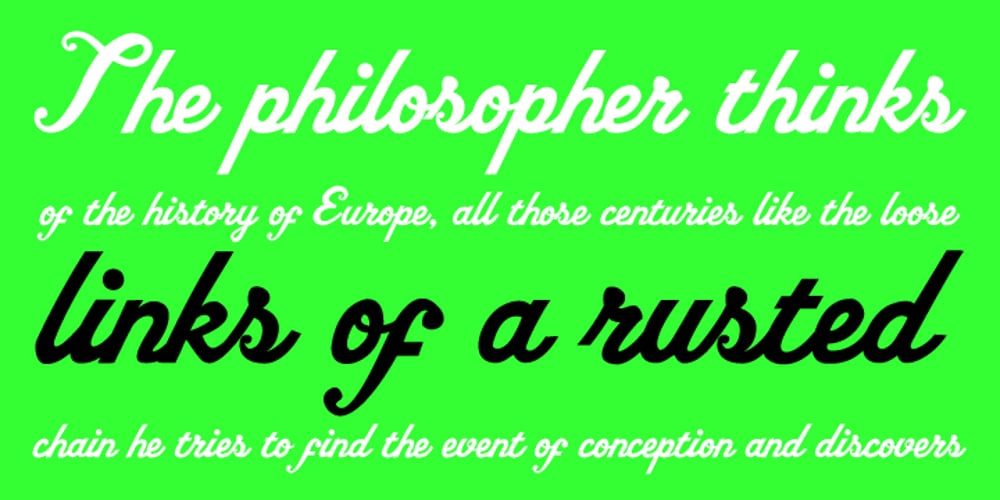
Vitrina
Vitrina font
Vitrina Font Family was designed by Pablo A. Medina and published by Design is Culture. Vitrina contains 1 styles and family package options. Vitrina is a script based on letterforms painted on a window for a restaurant called “Latin American Cafeteria”. Its quirky script forms are meant to evoke a sense of hand painted signage. Vitrina means “store front window” in Spanish.